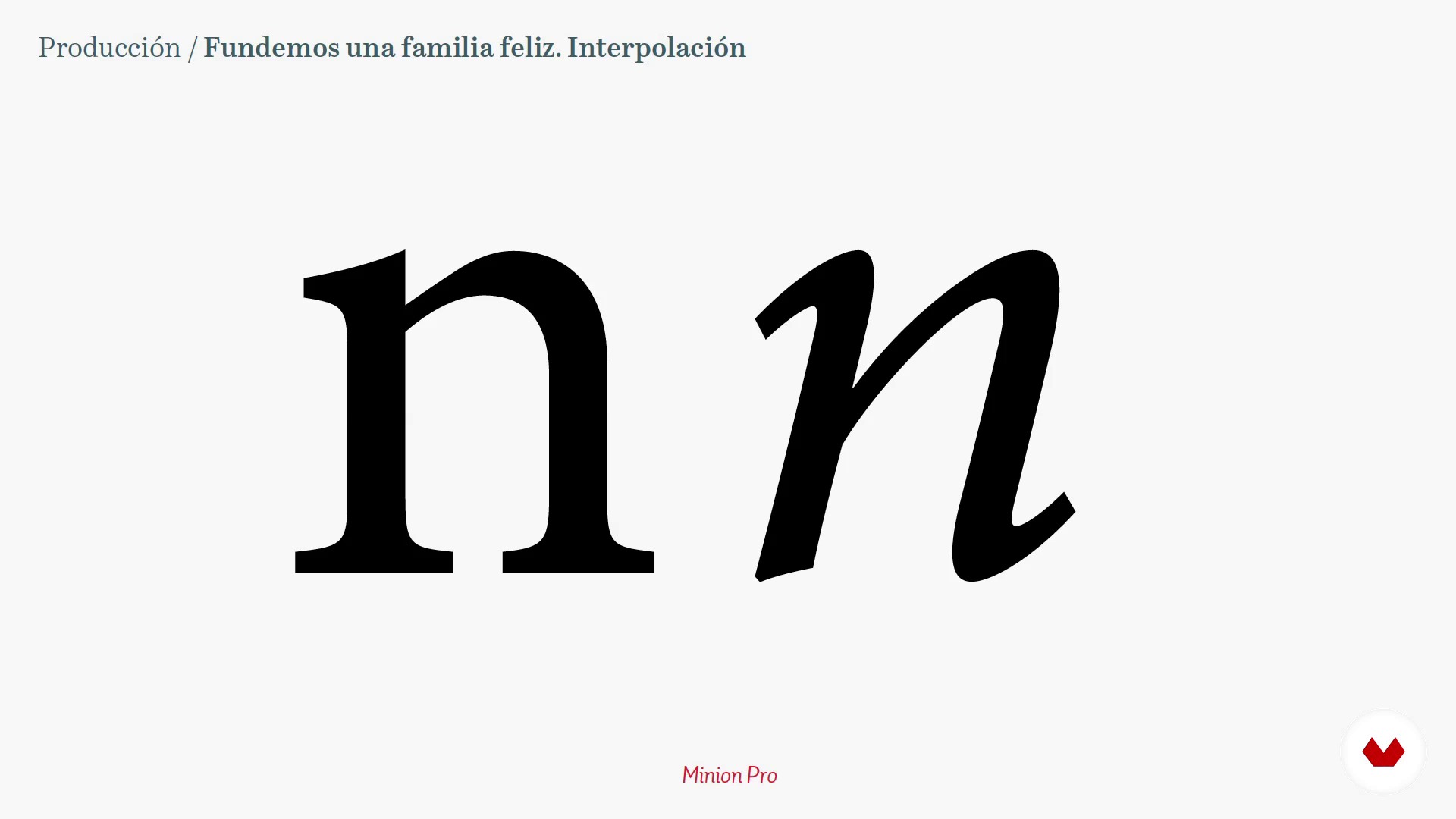
Let's start a happy family Interpolation 1
About the video: Let's start a happy family Interpolation 1
“Well, we already have a source perfectly prepared for modern life, but is it okay alone or do you need to be in a larger family? Can you do something Glyphs to make the task more bearable? ”
In this video lesson Juanjo López addresses the topic: Let's start a happy family Interpolation 1, which is part of the Domestika online course: Design a Digital Font from A to Z. Learn to design a font from scratch with Glyphs, Illustrator, and OpenType functions.
“In this lesson. we will explore how some fonts require preparation as part of a larger family. while others can stand alone. We'll delve into the details needed for each. In order for them to display properly within application menus. we must also delve into techniques. This process enables us to harness the power of Glyphs more effectively. something that is Fonts. especially text fonts. are usually grouped into families. Font families offer versatility. aiding designers in problem-solving and enhancing design flexibility. The most typical way to expand a font. to have a family. is to crea...”